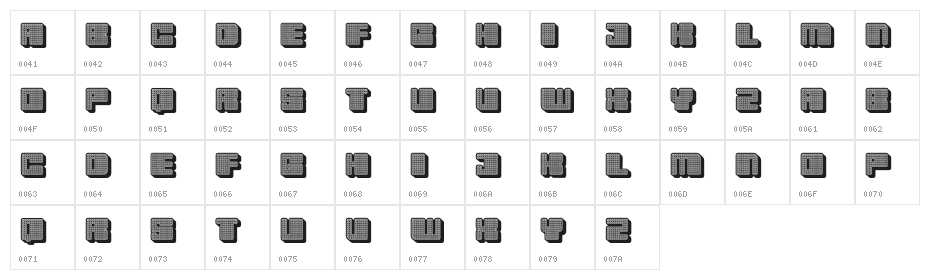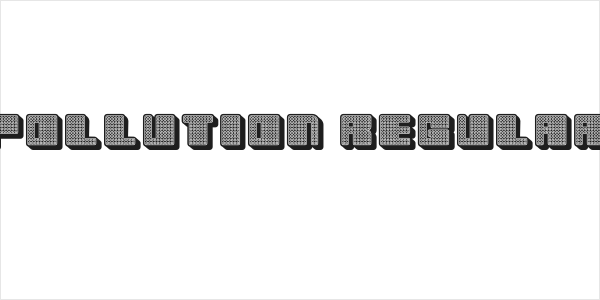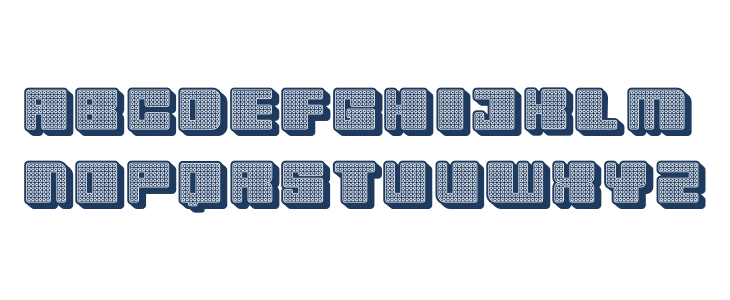
Pollution Regular Font
Pollution Regular Description
This font features a bold, three-dimensional style with a dotted texture filling each character. The letters are uppercase and have a blocky, geometric appearance, giving them a strong and impactful presence. The shadow effect adds depth, making the characters stand out prominently. The design is reminiscent of retro or vintage styles, with a playful yet sturdy aesthetic. The dotted pattern within each letter adds a unique texture, making it suitable for eye-catching designs.
| Overall Style | Retro, Decorative |
| Proposed Projects | Ideal for posters, retro-themed designs, video game graphics, and branding that requires a bold statement. |